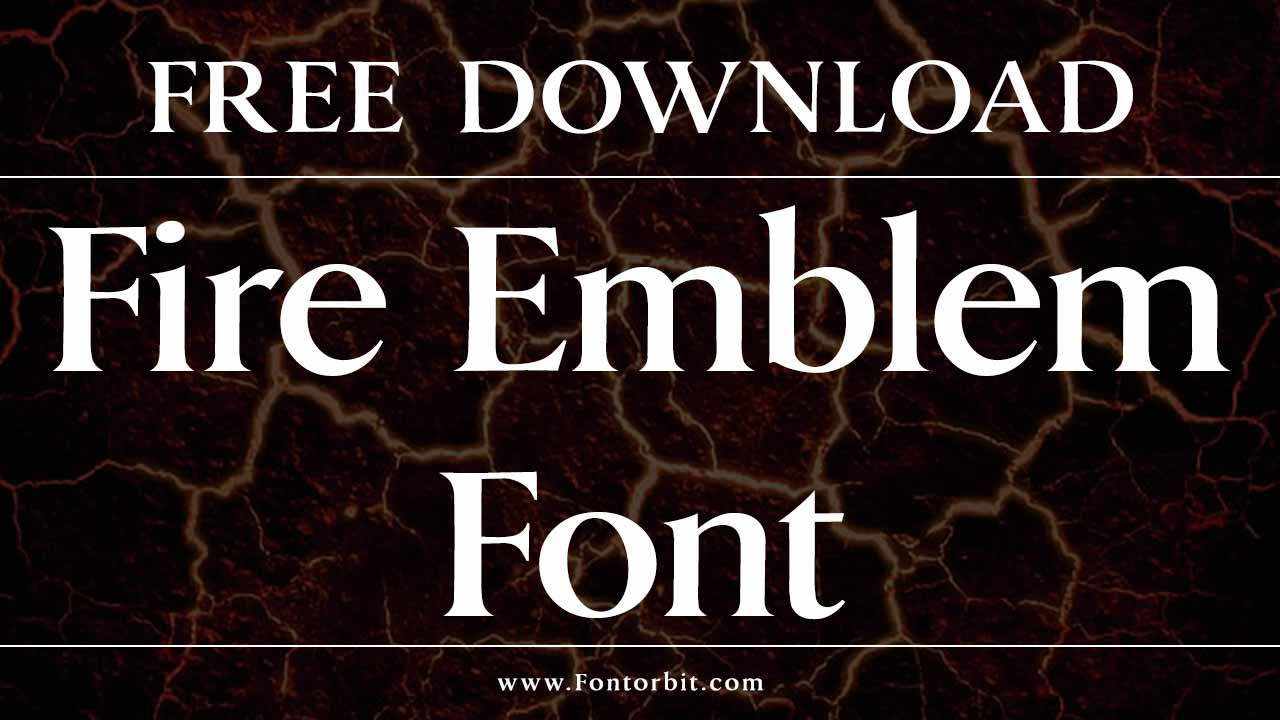
The Fire Emblem Awakening font is inspired by the logo of the tactical role-playing game Fire Emblem Awakening, developed by Intelligent Systems. The font is a mix of URW++ Danmark for the “Fire Emblem” text and Univers Bold Italic for “Awakening”. The in-game font resembles Chiaro B.
Fire Emblem Font Family Includes
This font falls under the display category and, due to its decorative, fantasy-based style, works well in themed designs.
- Fire Emblem Regular
- Fire Emblem Bold Italic
- Fire Emblem Light Italic
Notable Uses Of Fire Emblem Font
The Fire Emblem font is prominently associated with the Fire Emblem game series. Here are some notable uses:
- Fire Emblem: Awakening logo and cover art.
- Various Fire Emblem fan projects, including art, posters, and merchandise.
- Custom designs in the Fire Emblem gaming community.
- Cosplay and themed event branding.
The Fire Emblem font is ideal for use in fantasy, gaming, or medieval-themed designs. Its unique and decorative nature makes it suitable for creating titles, headings, or logos that need a strong, fantasy-like presence. It is not ideal for body text due to its detailed design.
Recommended uses include:
- Video game art
- fan projects
- flyers for fantasy events
- Custom merchandise
- Cosplay materials
The Fire Emblem font is a fan-made design that captures the essence of the medieval and fantasy themes of the Fire Emblem series. Though not an official typeface, it has been embraced by fans and used extensively in fan art and related creative projects. Whether you are designing posters, game art, or logos, this font brings a strong medieval aesthetic that fits perfectly with the Fire Emblem universe.
1.What Type Of Font Is Fire Emblem?
It is a display typeface with decorative medieval elements.
2.Who Designed The Fire Emblem Font?
The font was developed by a fan of the Fire Emblem series.
3.Is The Fire Emblem Font Official?
No, it is not officially associated with the Fire Emblem series but is widely used by fans.
4.What Kind Of Designs Is This Font Suitable For?
It is ideal for fantasy-themed projects, posters, and logos.
5.Does This Font Work Well In Body Text?
No, it’s more suitable for titles and headings.
6.What Are Some Similar Font Options?
Alternatives include Tolkien Regular, Ringbearer, Pirata One, and Cinzel.